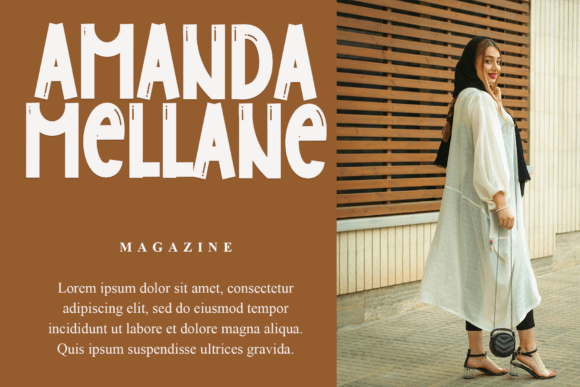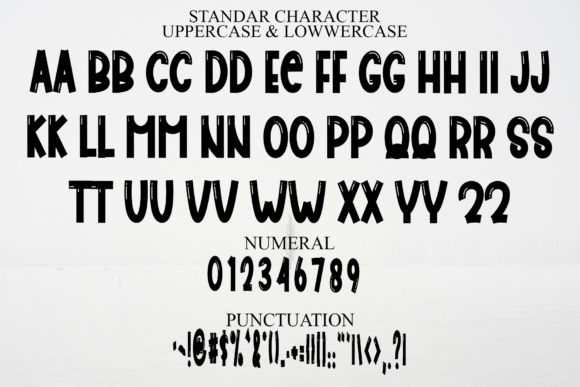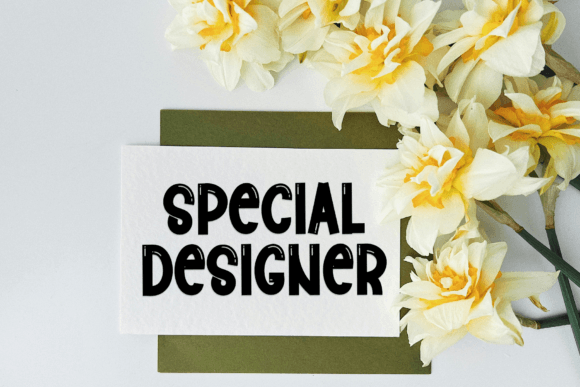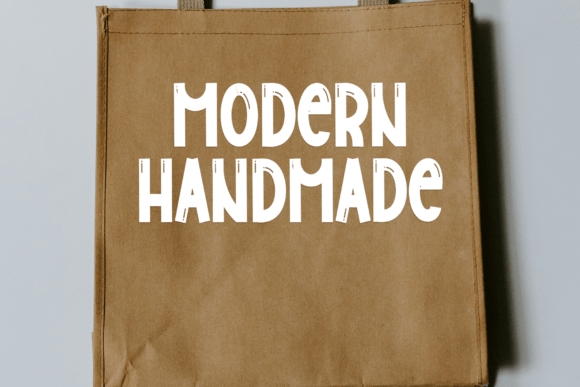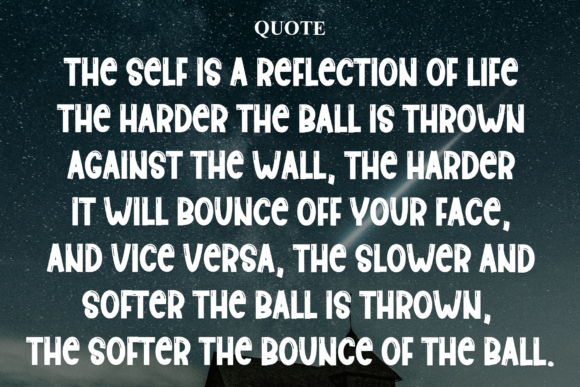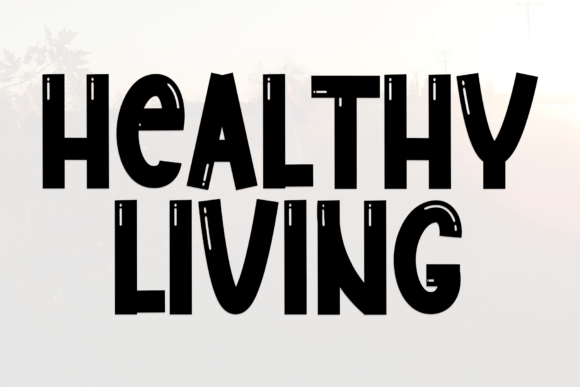
Starting Your Day Off Right with Bright Morning Font
There’s nothing quite like the thrill of opening your eyes to a blank canvas, a fresh design project waiting to be brought to life. The possibilities are endless, and the excitement is palpable. As you begin to brainstorm ideas, the right font can make all the difference in setting the tone for your design. That’s where Bright Morning Font comes in – a charming, hand-drawn display font that exudes warmth and friendliness.
Designed to evoke a sense of relaxation and approachability, Bright Morning Font is perfect for personal projects, invitations, and social media graphics. Its rounded, playful strokes add a delightful, whimsical touch to any design, making it a valuable asset for designers looking to add some personality to their work.
Bright Morning Font Key Features
- Font Family: Bright Morning Font is a sans-serif font family designed for use in digital and print media.
- Character Count: The font family includes over 1000 glyphs, covering a wide range of languages and characters.
- Unique Characteristics: Bright Morning Font features a modern and clean design, with a unique blend of geometric and organic shapes, making it suitable for a wide range of applications, from corporate branding to digital products.
Bright Morning Font Review
Overall, I think the Bright Morning Font is a solid addition to any designer’s toolkit. ✨ One thing that really stands out is its readability – even at smaller font sizes, the text remains clear and easy to decipher. This makes it a great choice for body text in long-form content. ✨ I also appreciate the font’s friendly, approachable feel, which is perfect for branding and marketing materials.
However, there are a few areas where the Bright Morning Font falls short. ⚠️ For one, the font’s weight system can be a bit inconsistent, with some weights feeling more like variations of the same style rather than distinct weights. ⚠️ Additionally, the font’s x-height can be a bit too small, which can make it difficult to use in certain situations.
Here are a few key takeaways from my review:
- Readability is a major strength of the Bright Morning Font.
- The font’s friendly, approachable feel makes it a great choice for branding and marketing materials.
- The font’s weight system can be inconsistent.
- The font’s x-height can be too small in certain situations.
Overall, I think the Bright Morning Font is a solid choice for designers looking for a friendly, approachable font. While it’s not perfect, its strengths outweigh its limitations, making it a great addition to any toolkit.
The Bright Morning Font is ideal for use in:
- Brand logos and identities
- Website headers and footers
- Business cards and stationery
Remember to use the Bright Morning Font consistently across your branding to create a cohesive and recognizable visual identity.